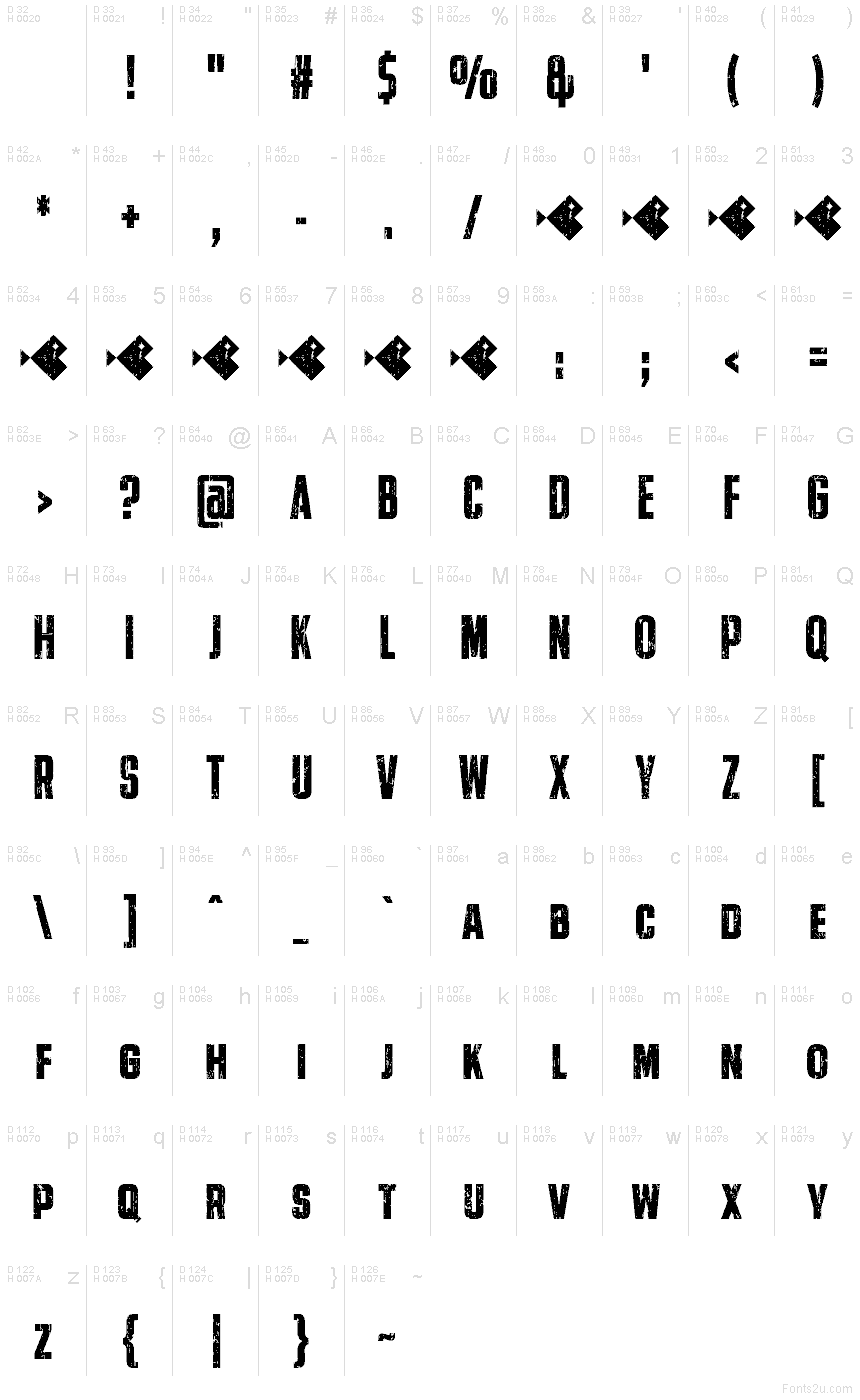
OXIDO Eroded
Oxido Eroded font by Fernando Haro aka deFharo is a free eroded display font that wears its grit proudly. Built within the Oxido family, its blocky, condensed forms look like steel plates sandblasted by years of weather—chipped edges, flaked paint, and high-contrast scuffs that read loud even at a distance. It brings instant patina to clean layouts, turning sterile compositions into something tough, tactile, and lived-in.
Using Oxido Eroded, you can punch up gig posters, survival-game titles, urban apparel tags, garage signage, festival branding, and gritty book covers. The dense weight holds together on noisy backgrounds and adds drama to short headlines and logotypes. Pair this free font with a plain geometric sans for body copy, or let it breathe by tracking it slightly at large sizes to amplify the rusted texture.
Oxido was born from a powerful idea: to capture the relentless imprint of time. The roughness of rust, the industrial toughness, and the beauty of imperfection merge into a typeface that doesn't sacrifice legibility or typographic sophistication.
It's not just an eroded—or "destroyed"—font; it's a visual testament to resilience and authenticity. Each glyph in Oxido is a metaphor for the passage of time, combining technical rigor with expressive power.